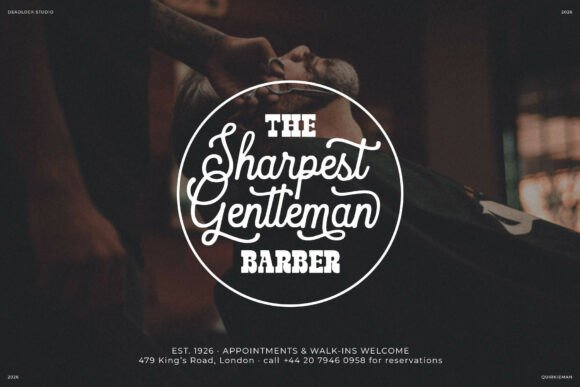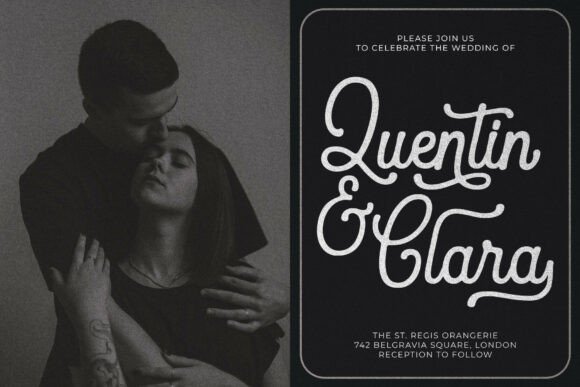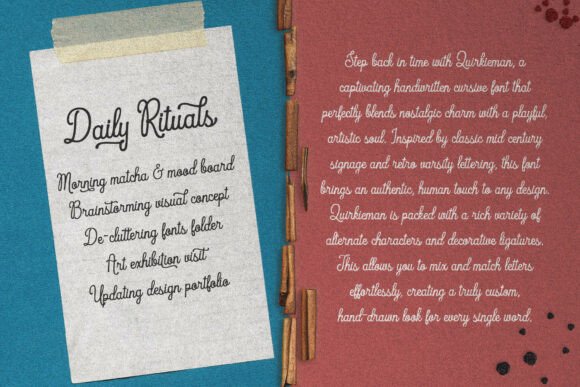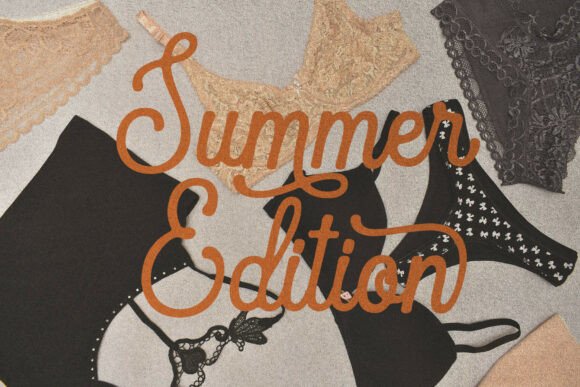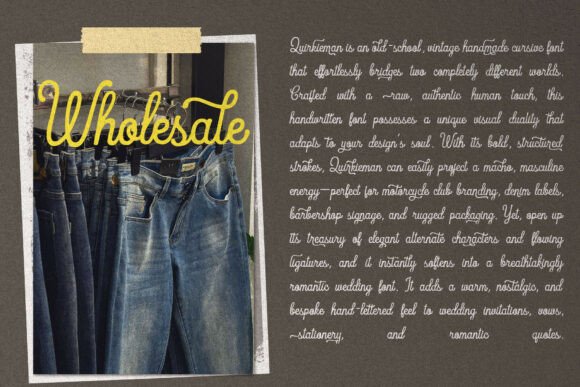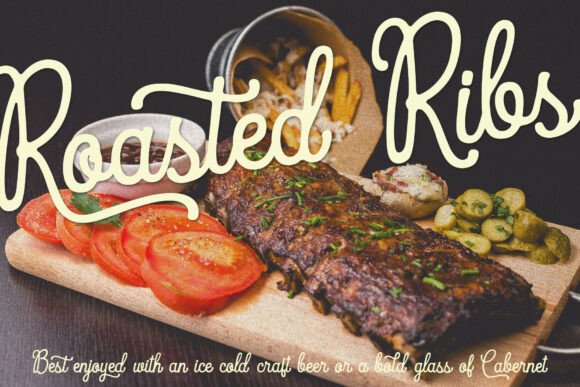
Introduction to Quirkieman Font
Remember the thrill of discovering that perfect, one-of-a-kind font that instantly elevates your design from ordinary to extraordinary? For many designers, this moment is a game-changer, and the Quirkieman Font is one such treasure that’s sure to delight.
With its vintage, handmade cursive charm, Quirkieman Font is the ultimate design resource for creatives seeking a high-quality, authentic look that’s both timeless and versatile. Whether you’re working on a logo, packaging, or social media quote, this font’s adaptability makes it the perfect companion for any project.
So, what makes Quirkieman Font so valuable for designers? Its transparent background and clean, modern flow make it an excellent choice for a wide range of applications, from free download to high-end designs. With its numerous features and alternatives, this font is poised to become a staple in your design arsenal, waiting to bring a touch of organic, hand-drawn charm to your next creative project.
Key Features of Quirkieman Font
- Unique and playful design, ideal for creative projects that require a whimsical touch.
- High-quality font with a transparent background, making it easy to use in various design resources.
Honest Review: Quirkieman Font
I recently stumbled upon the Quirkieman Font while searching for a unique design resource for a creative project. I was thrilled to find it available for free download with a transparent background, making it perfect for various design applications.
Here are some things that I think work well about the Quirkieman Font:
- ✨ Unique and playful design aesthetic that sets it apart from other fonts
- ✨ High quality vector graphics ensure crisp and clear text output
- ✨ Easy to read and understand, even at smaller font sizes
- ⚠️ Limited language support, which might be a concern for multilingual projects
- ⚠️ Not as versatile as some other fonts, which might limit its use in certain design contexts
Overall, I think the Quirkieman Font is a great addition to any designer’s toolkit. Its quirky design and high quality make it perfect for creative projects where you want to add a touch of personality. While it may have some limitations, I believe it’s definitely worth exploring further.
Tips for Getting the Most Out of Quirkieman Font
To get the most out of Quirkieman Font, experiment with different font sizes, colors, and styles to find the perfect combination for your design. Additionally, use the font in conjunction with other design elements to create a visually appealing and high quality design.
Quirkieman Font is ideal for use in a variety of creative projects, including logos, business cards, and marketing materials. Its unique design and high quality make it a great choice for any design that requires a professional and eye-catching look.